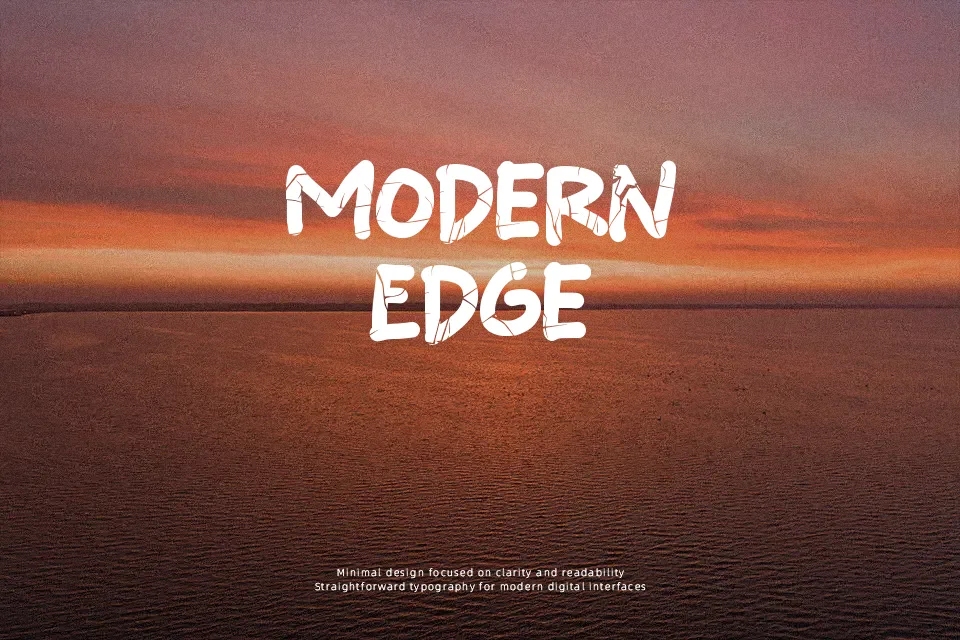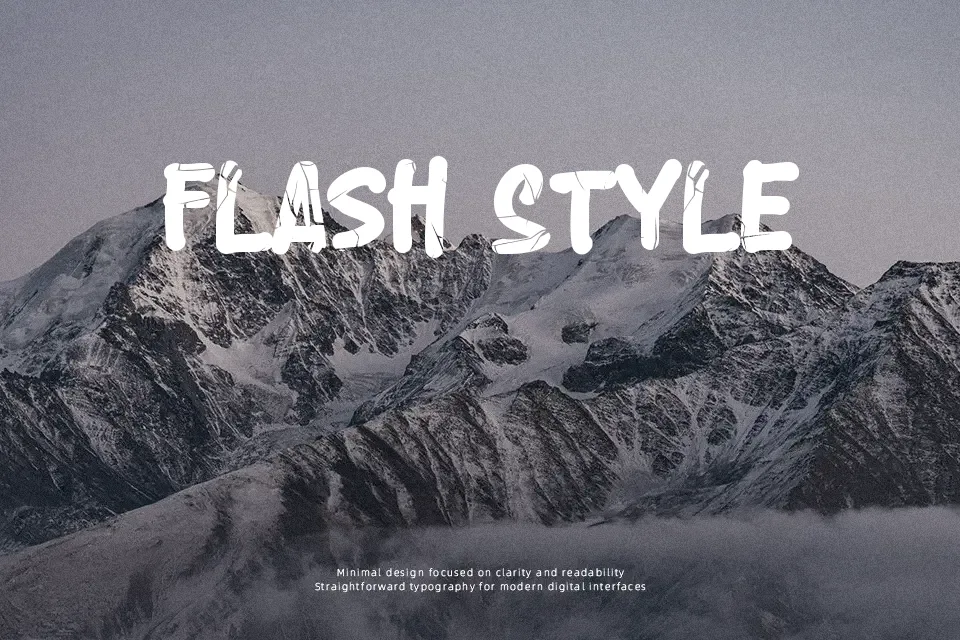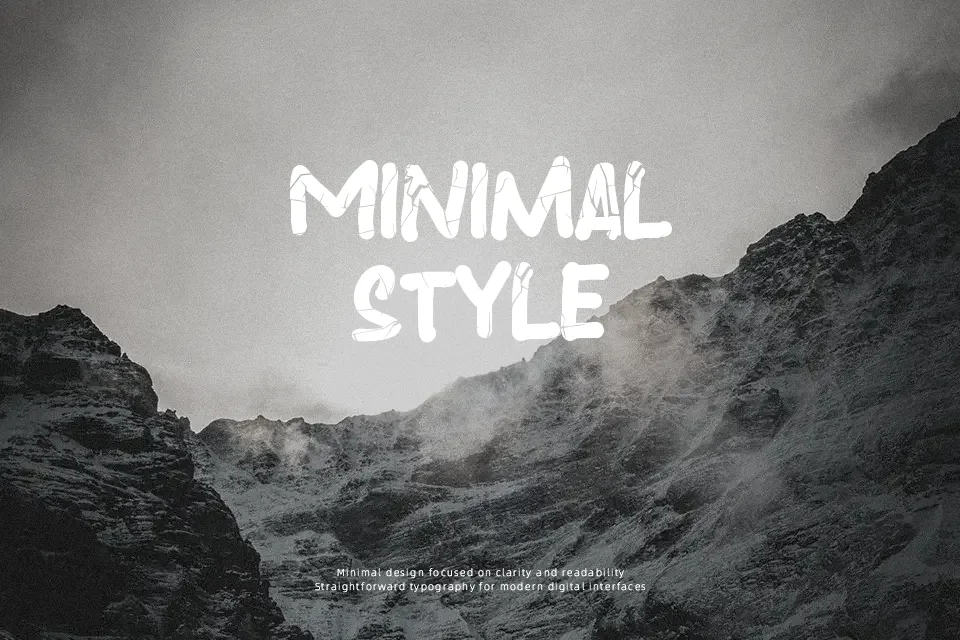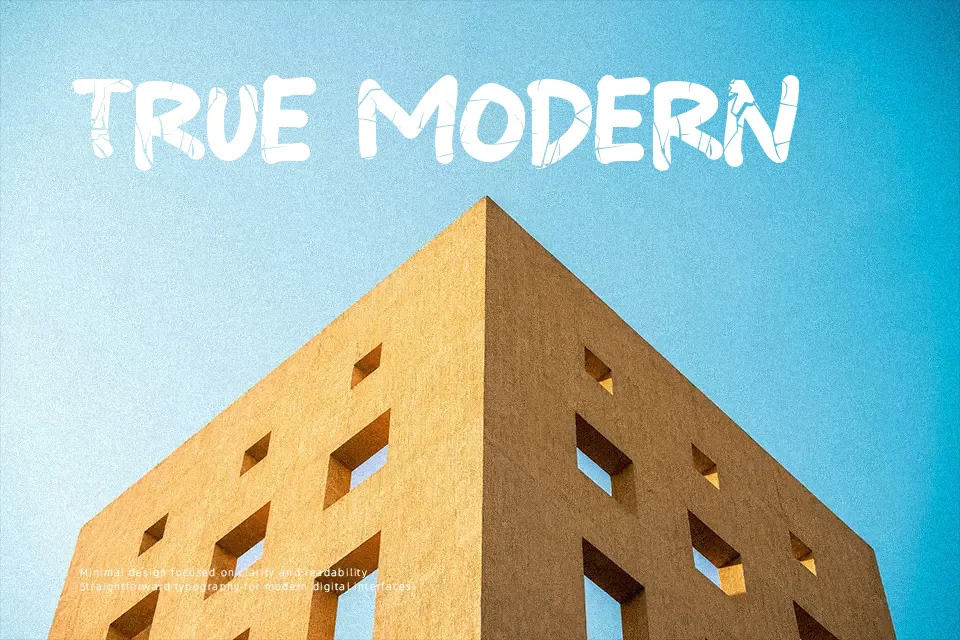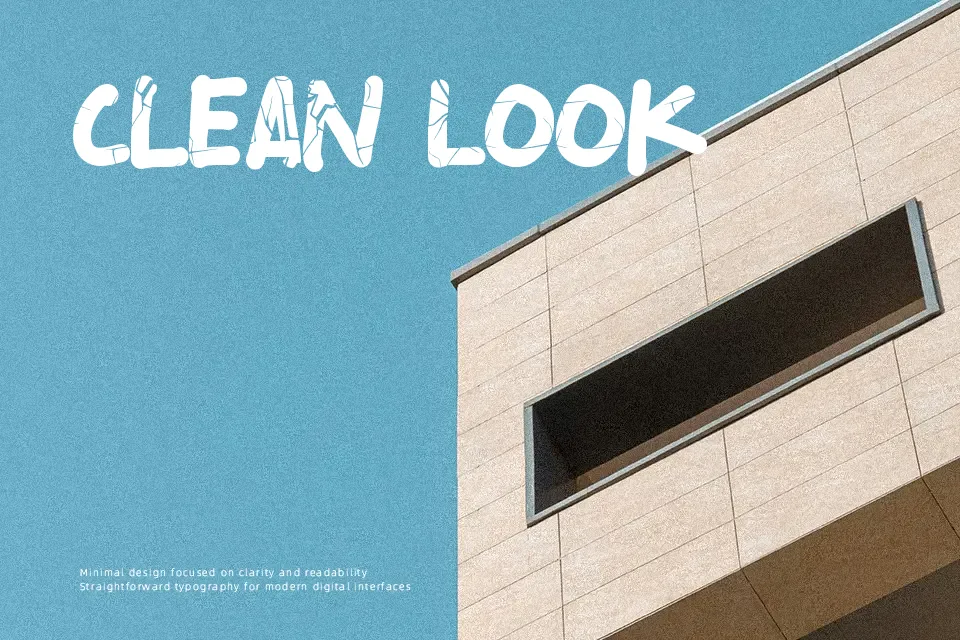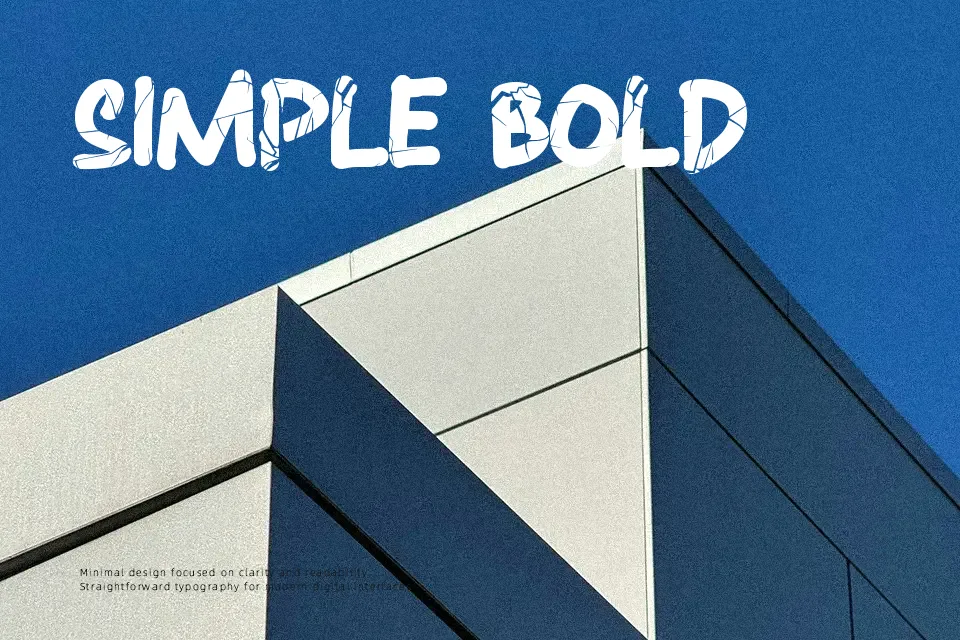
Breaking The Comic Font
Breaking The Comic Font is a thick, rounded comic style with heavy strokes, loose spacing, and slightly irregular letterforms that feel quick and hand‑lettered rather than polished. The overall look is casual and decorative, leaning into bold cartoon energy instead of subtle detail. It works well when you need a prominent, friendly title on labels, social posts, or packaging, especially for playful products, kids’ content, or informal events. However, its weight and uneven rhythm make it tiring in long paragraphs or serious editorial layouts, so it’s better reserved for short copy and expressive graphics where character matters more than typographic refinement.
playful poster headlines,kids product packaging,casual social media graphics,fun event titles
long body text,formal corporate reports,minimalist editorial layouts,serious professional branding
Perfect for branding, kids, and packaging, with a bold and cartoon style.